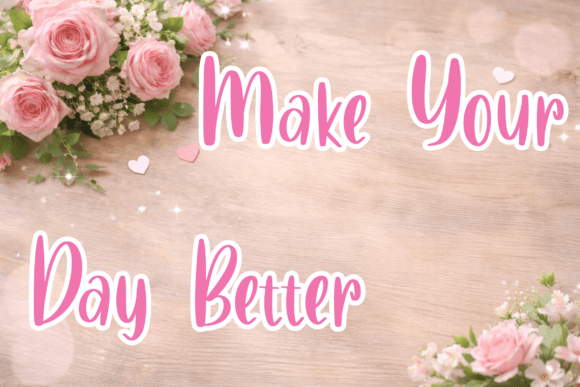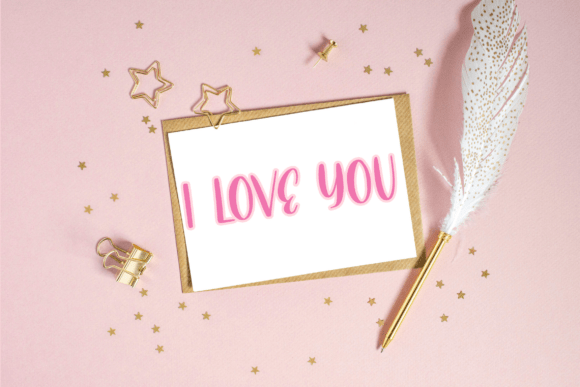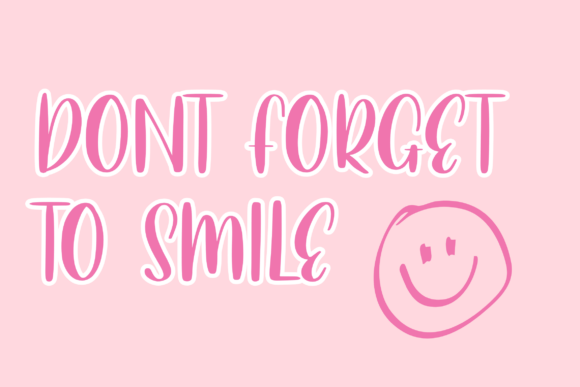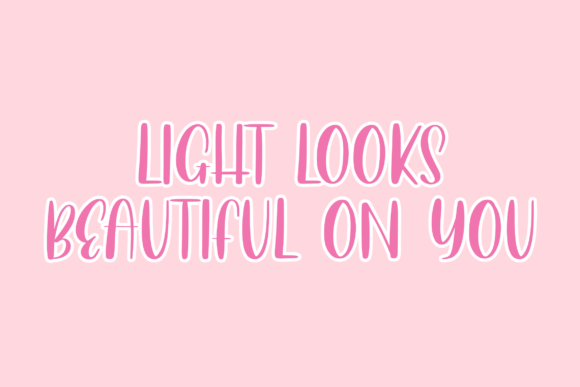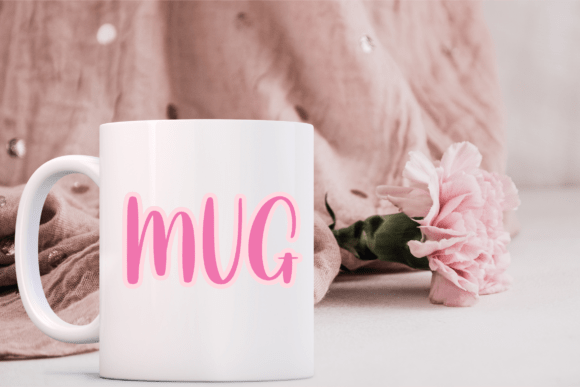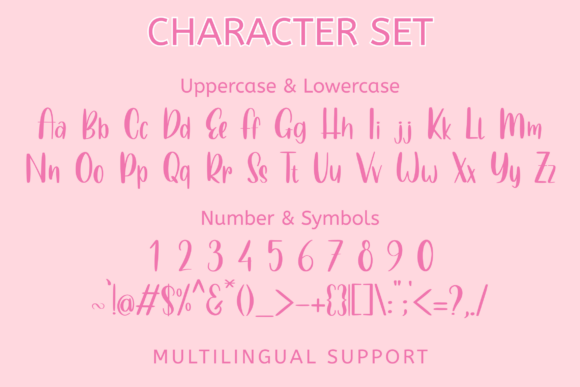
Introduction to Daily Hand Font
As you sit down to start a new creative project, the blank page stares back at you, waiting for your imagination to bring it to life. The click of your pen or the swipe of your digital tool breaks the silence, and your ideas begin to flow. But, have you ever struggled to find the perfect font to match your vision? That’s where the Daily Hand Font comes in – a beautiful handwriting font that captures the essence of real pen writing while maintaining a clean and easy-to-read design.
For designers, finding a high-quality design resource like Daily Hand Font is a treasure. It’s a versatile choice that can be used for branding, planners, invitations, and more. With its smooth and slightly organic strokes, Daily Hand Font adds a personal touch to any project, making it an ideal choice for small business branding and personal projects. Whether you’re working on a free download or a high-end design, Daily Hand Font is sure to elevate your creative project.
Key Features of Daily Hand Font
- High-quality, hand-drawn design resource ideal for creative projects.
- Features a transparent background, allowing for easy integration into various design settings.
- Designed to be highly versatile, suitable for use in a variety of creative contexts, from branding to editorial design.
- Unique, hand-crafted design aesthetic that adds a personal touch to any project.
Honest Review: Daily Hand Font
I recently came across the Daily Hand Font, and I was immediately drawn to its unique charm. This free download is a fantastic design resource for any creative project that requires a personal touch. With its transparent background, I was able to seamlessly integrate it into my design without any issues.
- ✨ Unique handwriting style that adds a personal touch to any design
- ✨ High quality, making it perfect for printing and digital use
- ✨ Transparent background for easy integration into designs
- ⚠️ Limited font sizes and styles, which may not be ideal for complex designs
- ⚠️ May not be suitable for formal or corporate designs due to its casual, handwritten feel
Overall, I’m impressed with the Daily Hand Font. It’s a great addition to any designer’s toolkit, and I’ve already found it useful in several creative projects. If you’re looking for a unique, high-quality font for your next design, I’d definitely recommend giving it a try.
The Daily Hand Font is perfect for a variety of creative projects, including graphic design, digital art, and typography-based designs. Use it to create invitations, posters, and social media graphics that stand out from the crowd.
Compared to Daily Hand Font, Great Vibes has a more refined and sophisticated look, making it suitable for more formal projects. However, both fonts share a similar handwritten feel, making them interchangeable in many cases.